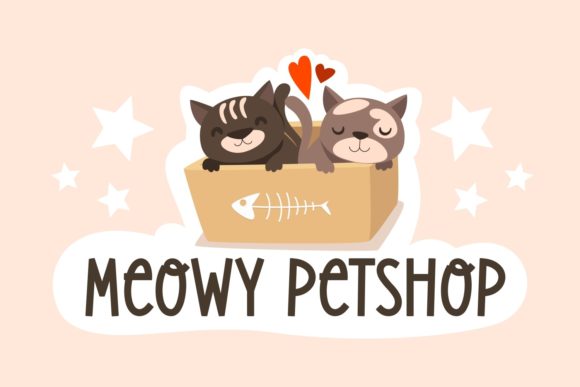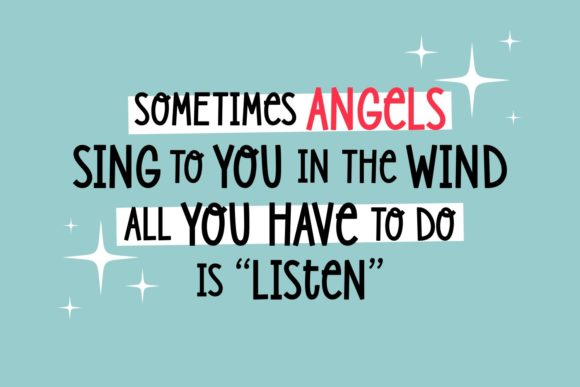
Lovely Angels Font
db-ku.com - Script & Handwritten -- Lovely Angels is a childish, easy-to-read display font that conveys impeccable friendliness. Whether you’re using it for crafts, digital design, presentations, or making greeting cards, this font has the potential to become your favorite go-to font, no matter the occasion!